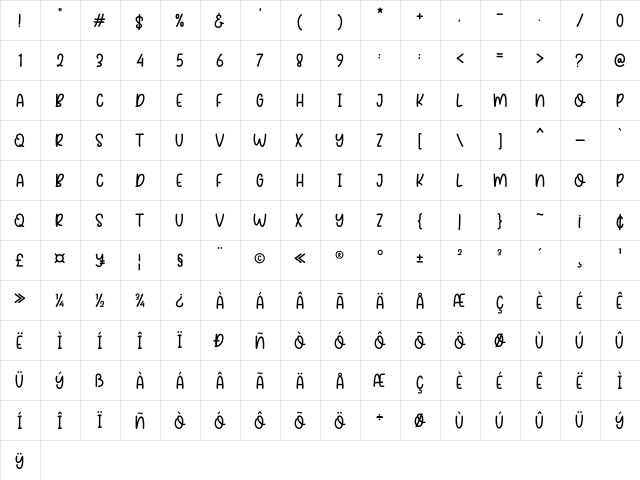
Focus Quotes Regular
| Foundry | Getypes Studio |
| Designer | Rizaldi Wandani |
Design Context for Focus Quotes Typeface
Focus Quotes is a composed and adaptable typeface that performs quietly and consistently across a wide range of design contexts.